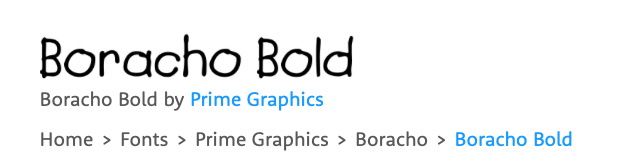
Hi, I’m struggling to get this font that was used on some 90s Sesame Street and Letter People products, and boy, does AI font detection hate me. It just gives me the wrong fonts every time I try to extract this one, I tried searching all over the web for this font and still don’t get the exact font. What is the exact name of this font?
Apparently, it’s sold by two foundries under different names: